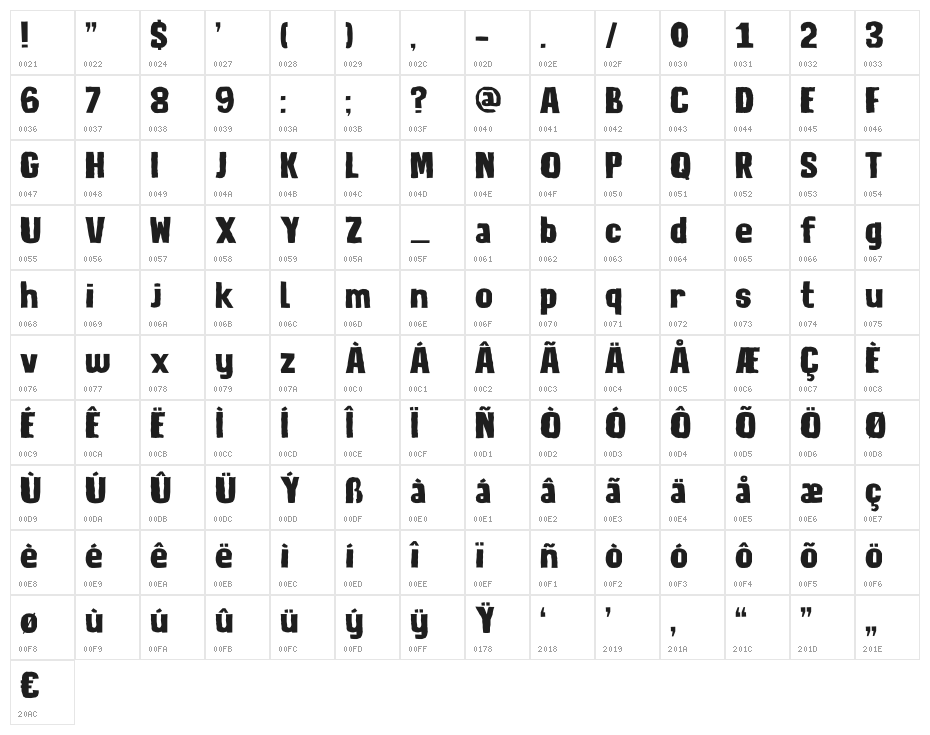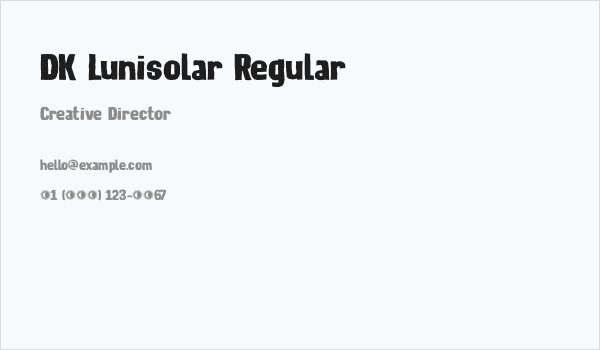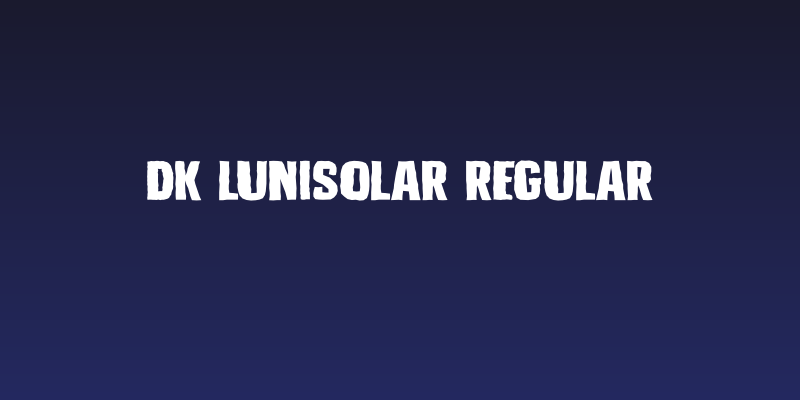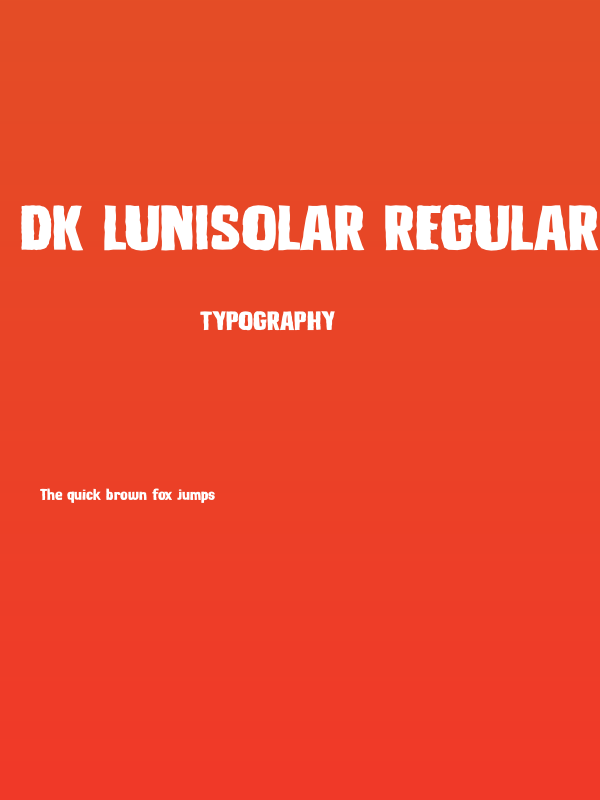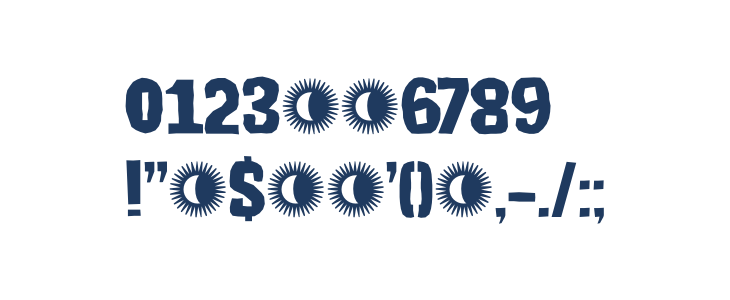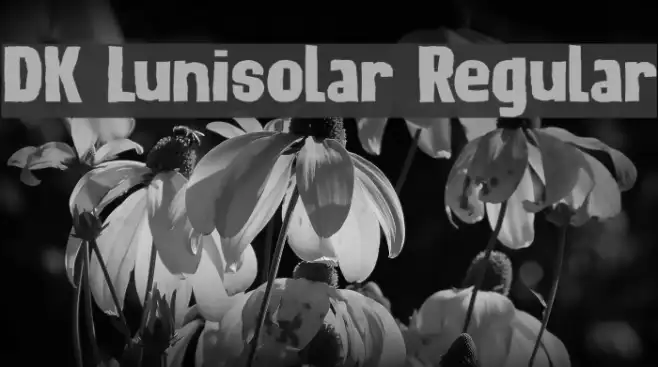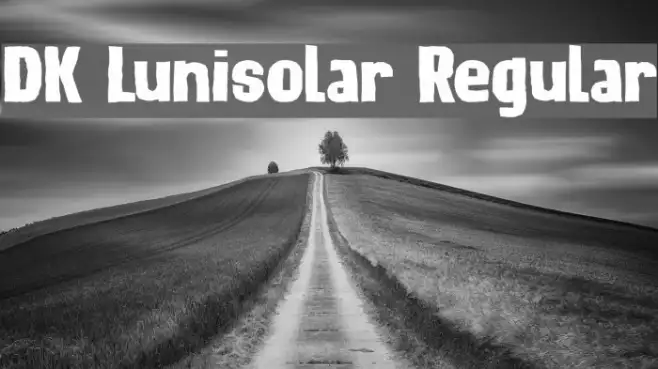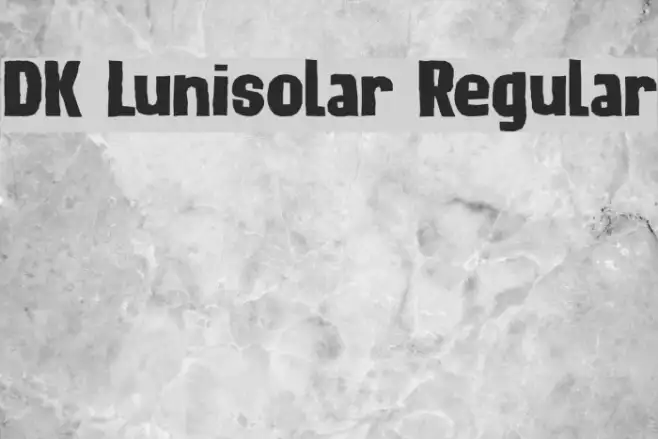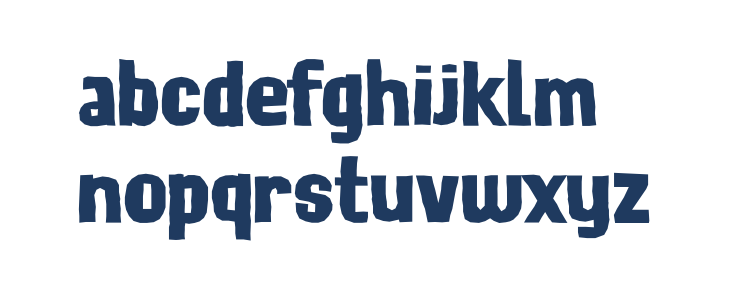
DK Lunisolar Regular Font
DK Lunisolar Regular Description
This font features a bold and rugged design with a hand-crafted appearance. The uppercase and lowercase letters exhibit a slightly uneven texture, giving it a rustic and organic feel. The numbers and special characters maintain this style, with some characters incorporating unique decorative elements, such as the sunburst design in the zero. The overall appearance is striking and attention-grabbing, making it suitable for projects that require a strong visual impact.
| Proposed Projects | Ideal for posters, branding, album covers, and any design needing a bold, rustic touch. |